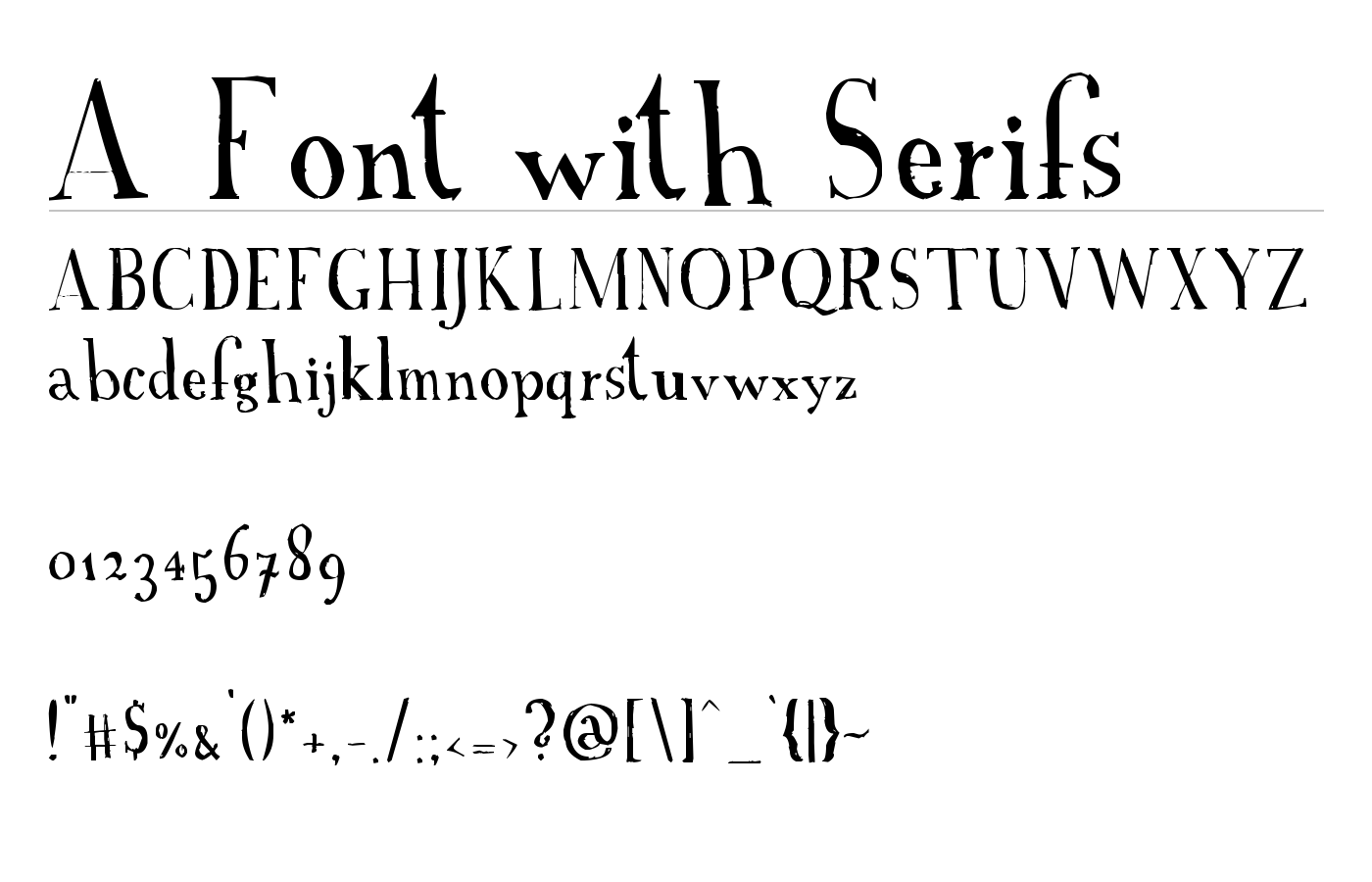
A Font with Serifs is an elegant serif typeface featuring irregular, hand-drawn characteristics that give it a unique, artistic feel. With its thin, slightly rough strokes and moderately high contrast, it works well for creative projects, vintage-inspired branding, or editorial headlines where a touch of personality and sophistication is desired. Its distinct letter shapes and slight imperfections add charm and a handcrafted quality that stands out in both print and digital designs.